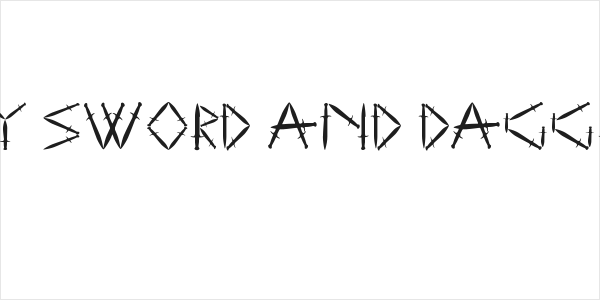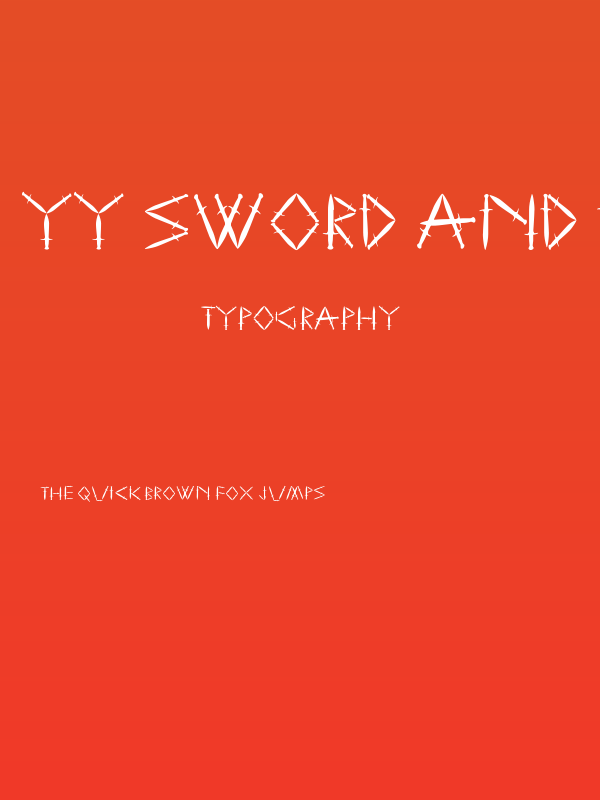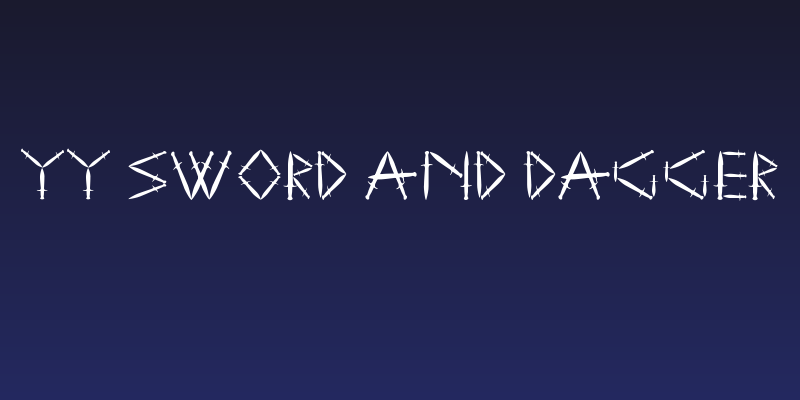
YY Sword and Dagger Font
YY Sword and Dagger Description
This font features a unique and striking design where each character is crafted to resemble swords and daggers. The letters and numbers are composed of sharp, angular lines with pointed ends, giving a sense of edginess and danger. The overall appearance is bold and dramatic, making it ideal for projects that require a strong visual impact. The characters are well-defined, with consistent use of sword and dagger motifs throughout, creating a cohesive and thematic look. This font is perfect for fantasy-themed designs, gaming titles, or any creative work that seeks to evoke a sense of adventure and intrigue.
| Proposed Projects | Ideal for fantasy book covers, gaming titles, movie posters, and themed event invitations. |